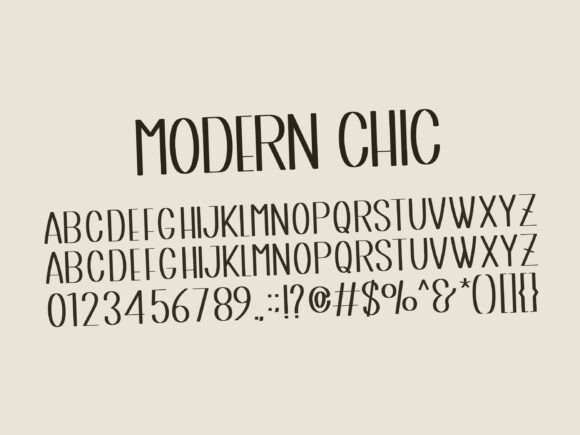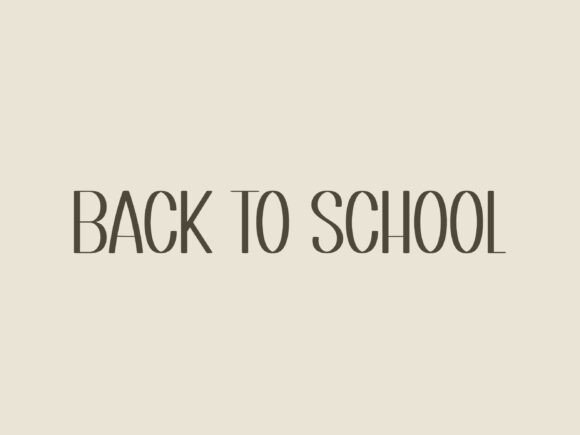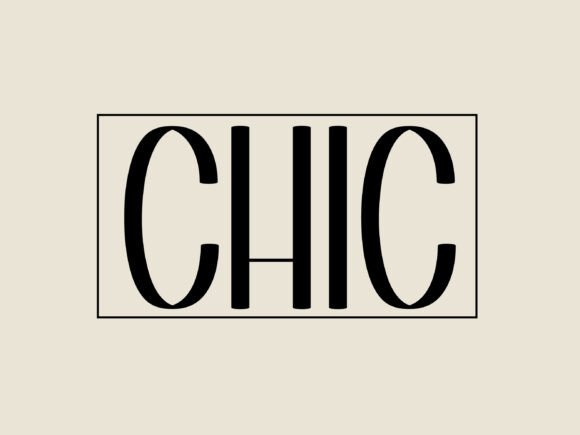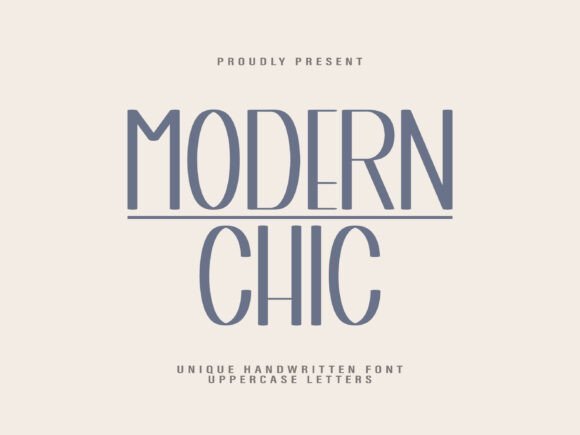
Introduction to Modern Chic Font
Exude a sense of effortless sophistication with Modern Chic, a unique handwritten font designed for high-end aesthetics and minimalist layouts.
This Modern Chic typeface features tall, condensed uppercase letters with a refined, slender structure that balances professional polish with an artisanal, hand-crafted touch It is the ultimate choice for editorial headlines, fashion branding, and boutique signage where a clean yet β€œhuman” look is required.
Key Features of Modern Chic Font
Why Choose Modern Chic Font?
Modern Chic Font offers exceptional quality and versatility, making it a valuable addition to your design toolkit. Whether you’re creating for personal projects or commercial use, Modern Chic Font delivers professional results.